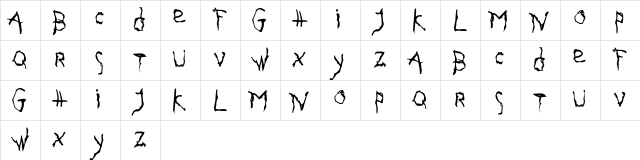
Gothika Regular
Foundry: Aeryn / Warner Bros.
Designer: Aeryn
Design Context for Gothika
Gothika is a composed and adaptable typeface that performs quietly and consistently across a wide range of design contexts.